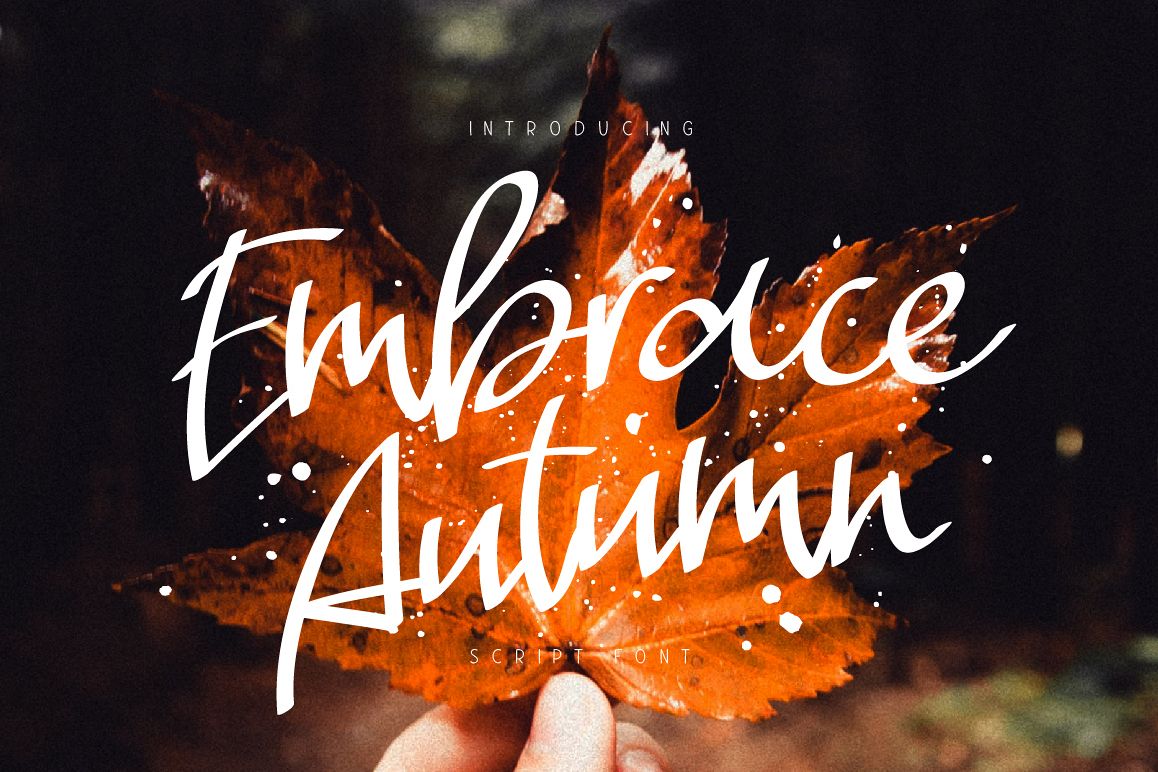
Embrace Autumn
Embrace Autumn is a handwritten font. It comes with uppercase and lowercase characters, large set of punctuation glyphs, numerals, ligatures, cyrillic characters and multilingual support.